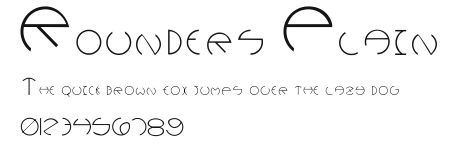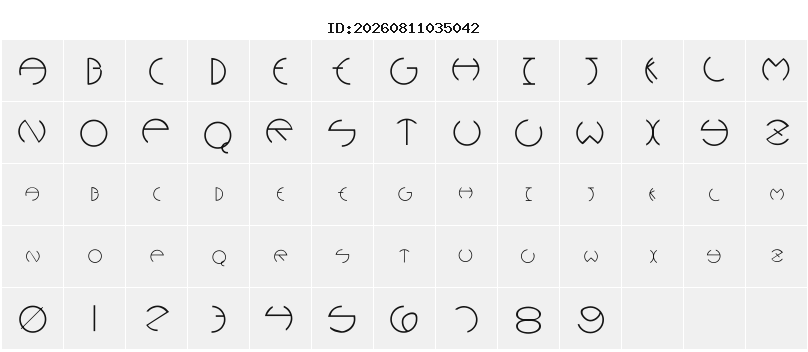
Rounders Plain Preview
• Font Name: Rounders Plain
• Full Font Name: Rounders Plain
• PostScript Name: RoundersPlain
About Rounders Plain.ttf
Rounders Plain.ttf is a modern, elegant sans-serif font designed for ultimate readability and visual harmony. Perfect for branding, headlines, web design, and print materials.